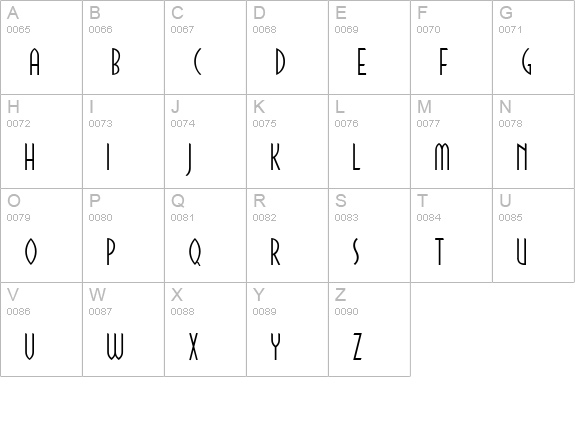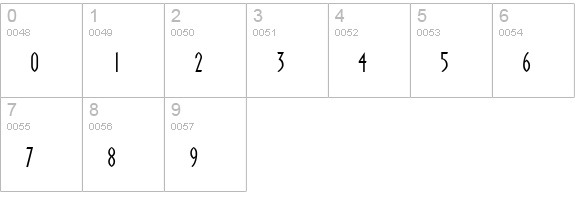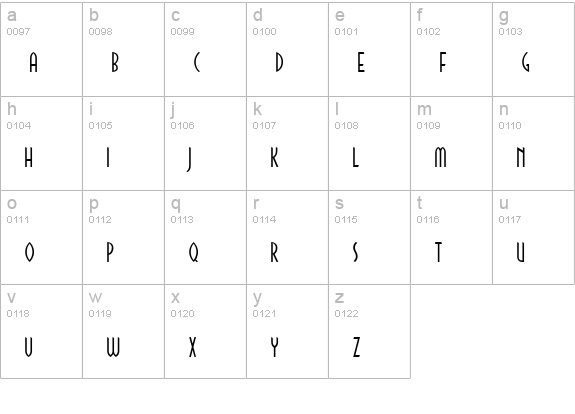
CinemaThin font is a sleek and modern typeface that exudes elegance and sophistication. Its thin strokes and clean lines make it perfect for adding a touch of refinement to any design project. Whether you're working on a poster, logo, or website, CinemaThin font will bring a sense of style and class to your work. And the best part? CinemaThin font is completely free to download at FontsMarket.com. That's right, you can elevate your designs with this beautiful typeface at no cost at all. Don't miss out on this opportunity to enhance your creative projects with CinemaThin font - download it today and take your designs to the next level!